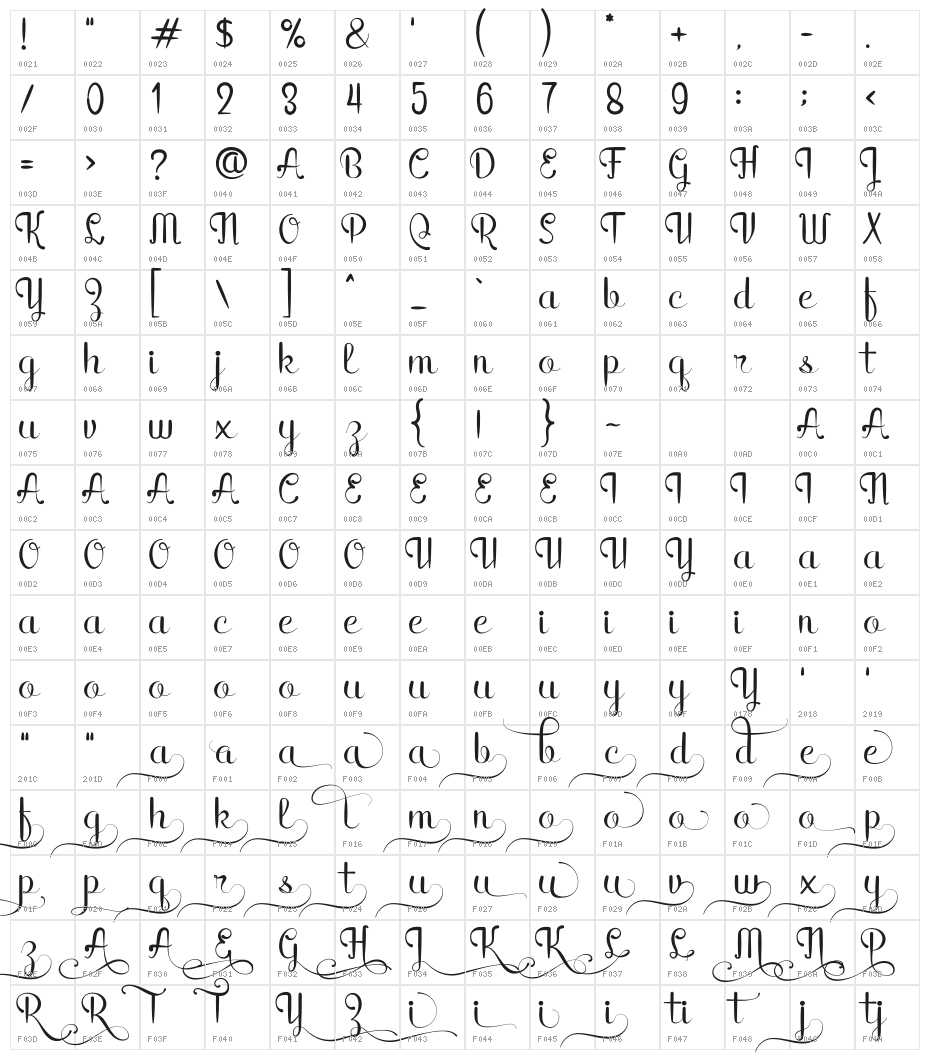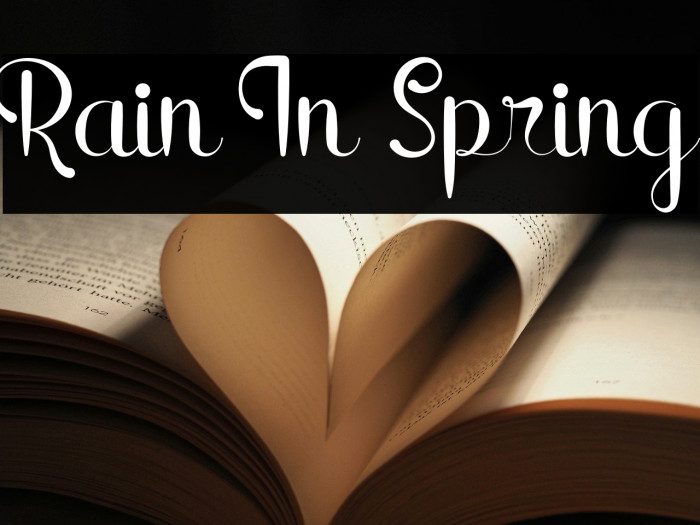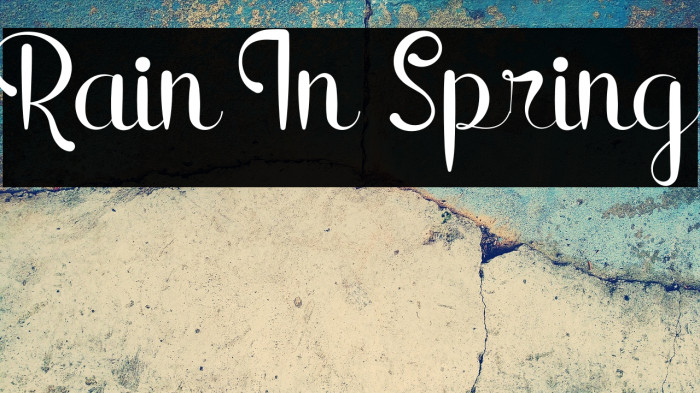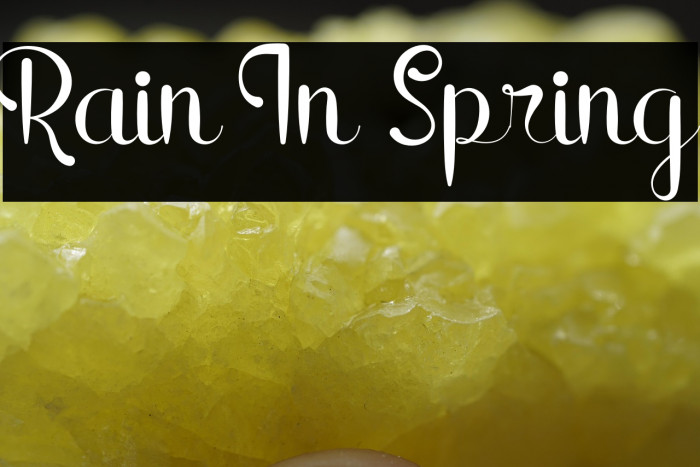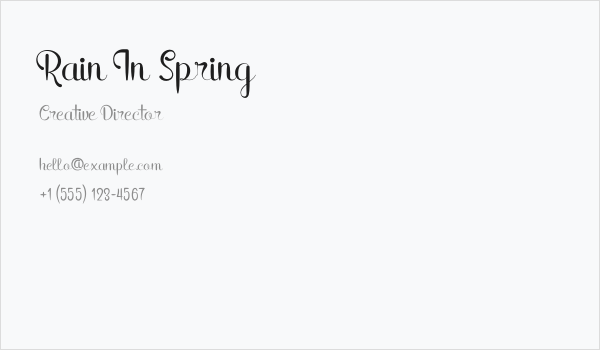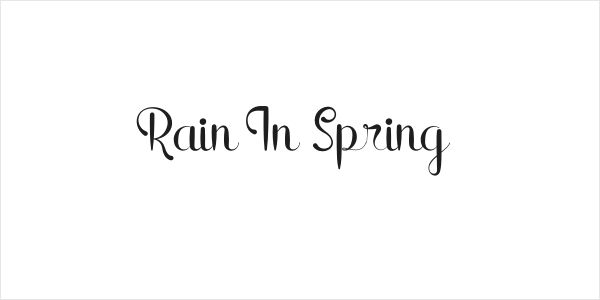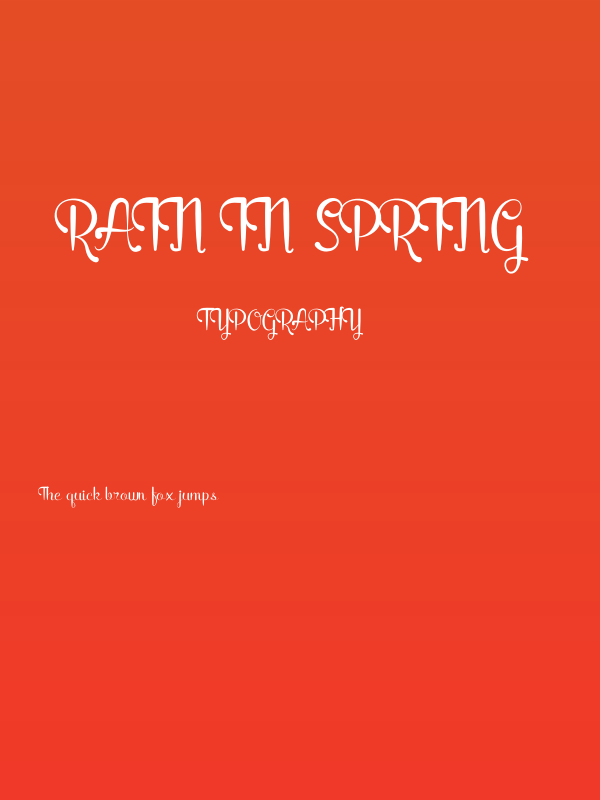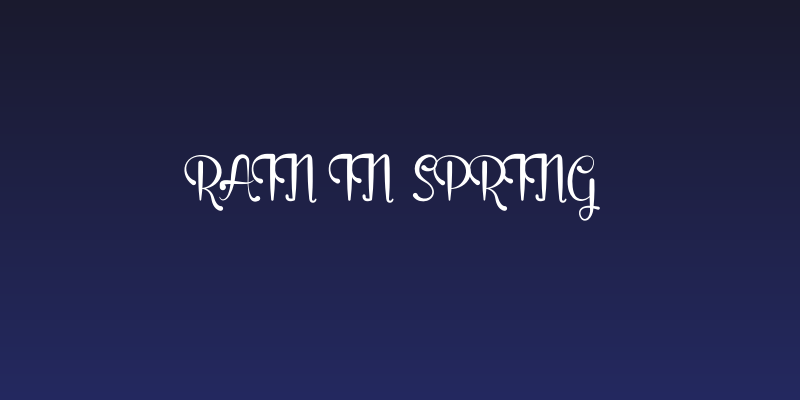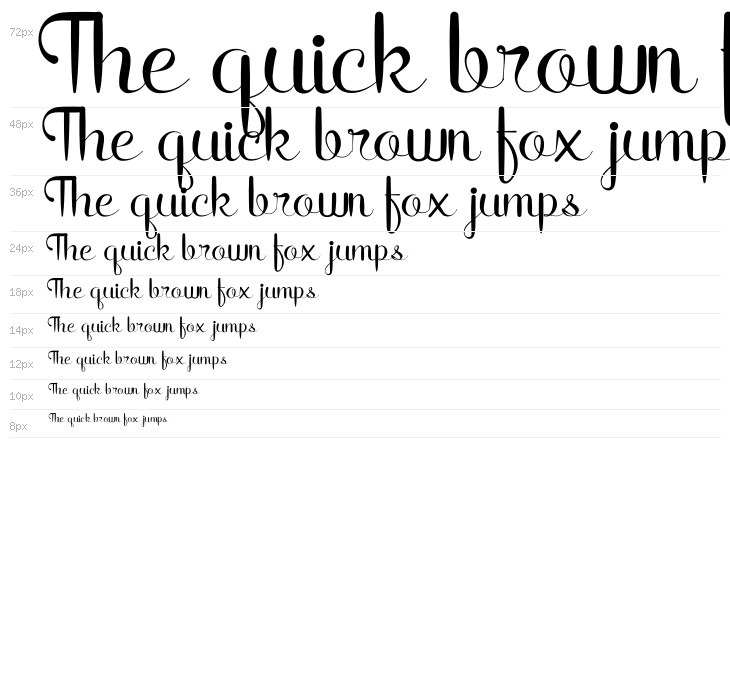
Rain In Spring Font
Rain In Spring Description
This font features a playful and elegant script style with a flowing, cursive design. The uppercase letters are characterized by their tall, looping ascenders and descenders, giving them a whimsical and artistic flair. The lowercase letters maintain a consistent flow, with smooth connections between characters, enhancing the script's fluidity. The numerals are bold and rounded, complementing the overall style with a touch of modernity. Special characters are creatively integrated, maintaining the font's cohesive aesthetic. This font's unique blend of elegance and playfulness makes it suitable for a variety of creative applications.
| Use Case | Logos, Invitations, Decorative text |
| Proposed Projects | Ideal for wedding invitations, greeting cards, branding, and decorative projects. |